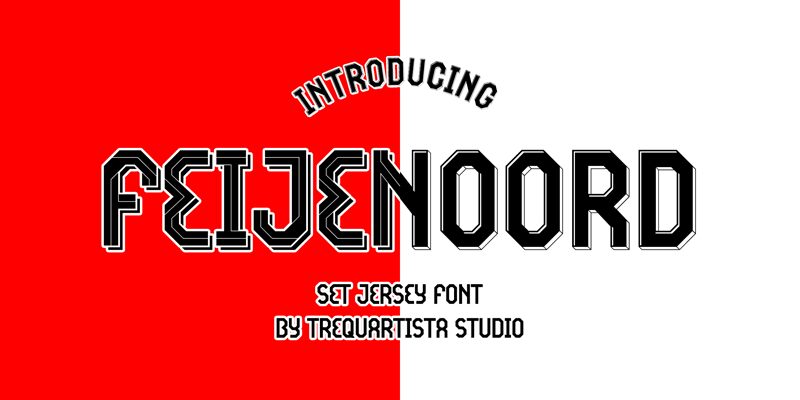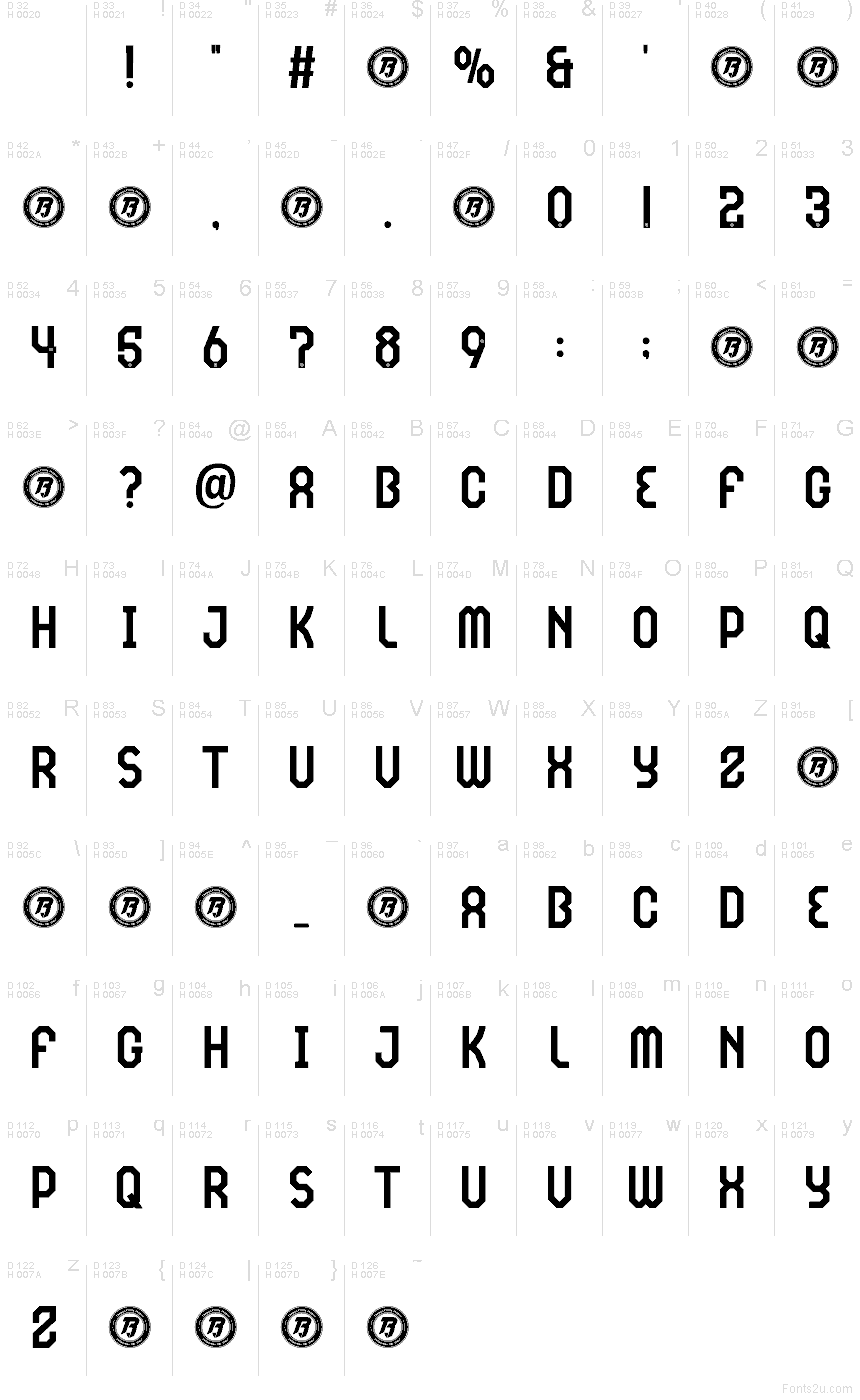
Feijenoord by Trequartista Studio is a free angular techno display font with a hard-edged, almost modular rhythm. The caps feel carved from chunky blocks, with clipped corners, stepped joins, and sharp inward cuts that give the letters a gritty, industrial pulse rather than a slick futuristic polish.
That makes it a strong fit for sports branding, streetwear graphics, esports titles, poster headlines, and album or mixtape covers where the letters need a tough, badge-like presence. As a free font, it also suits title cards, monograms, and short cover lines, because those dense geometric shapes hold together best when the wording stays brief.